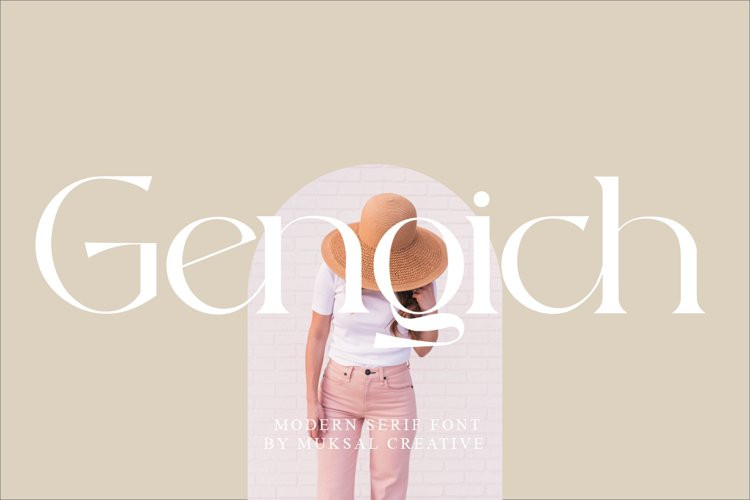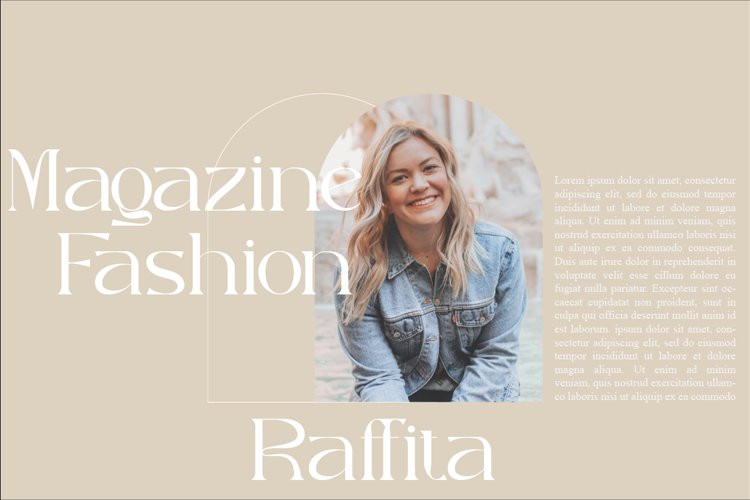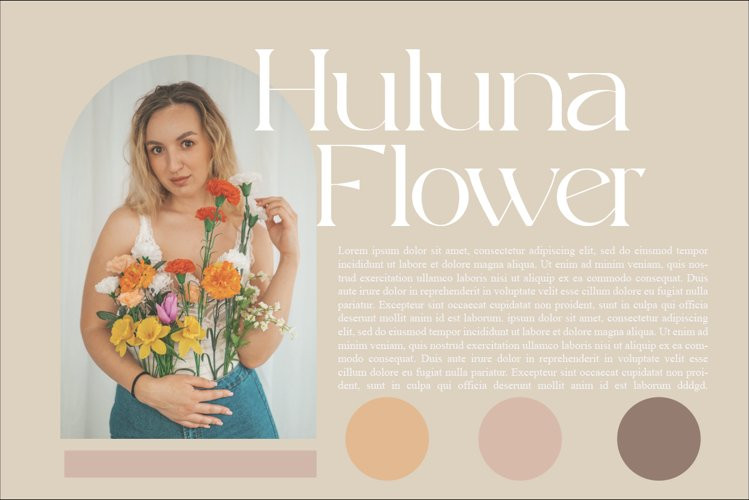
Gengich Font
Gengich FontGegich Modern serif Font typeface with beautiful ligature, special glyphs, ornament and multilingual support. It’s a very versatile font that works great in large and small sizes. Perfect for editorial projects, Logo design, Clothing Branding, product packaging, magazine headers, or simply as a stylish text overlay to any background image.